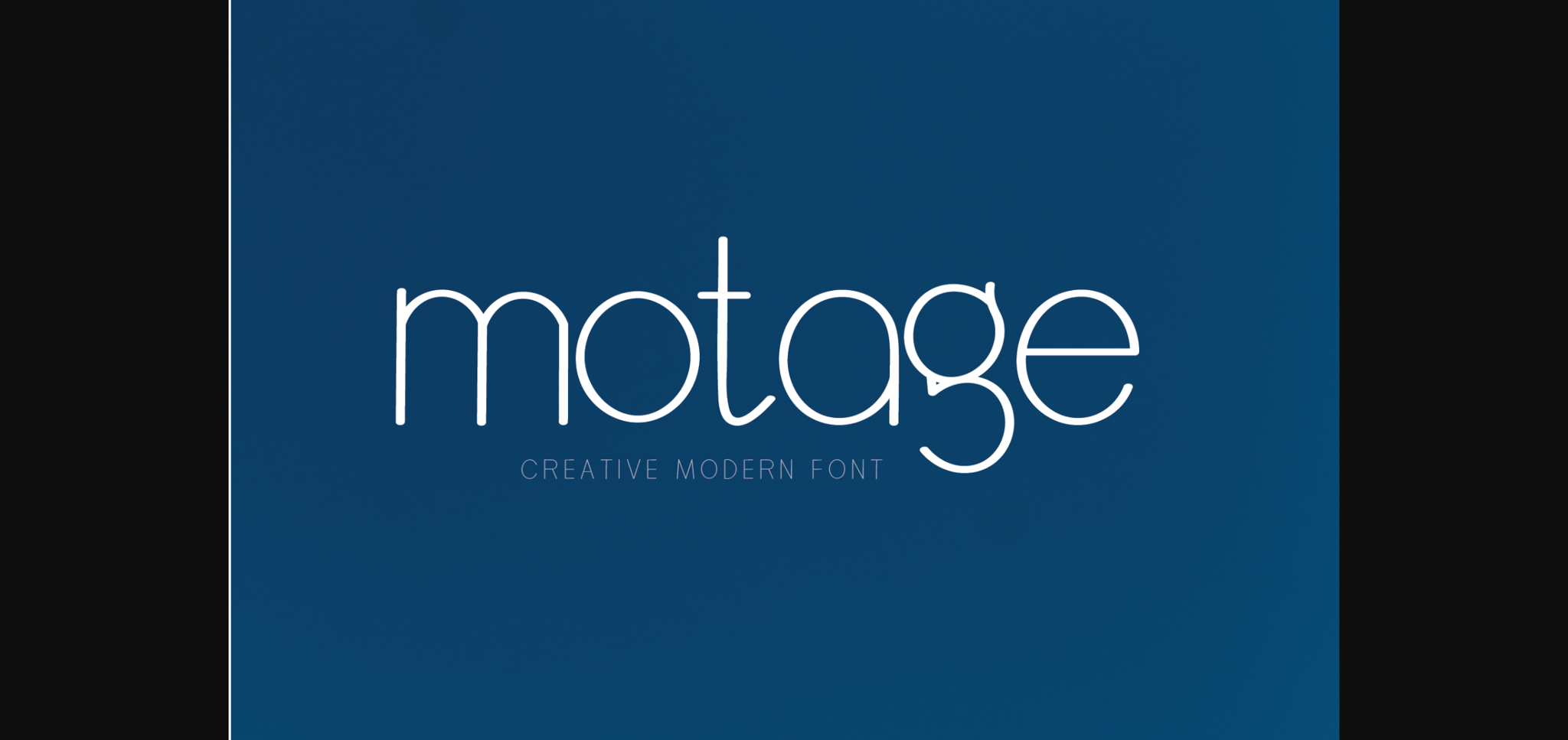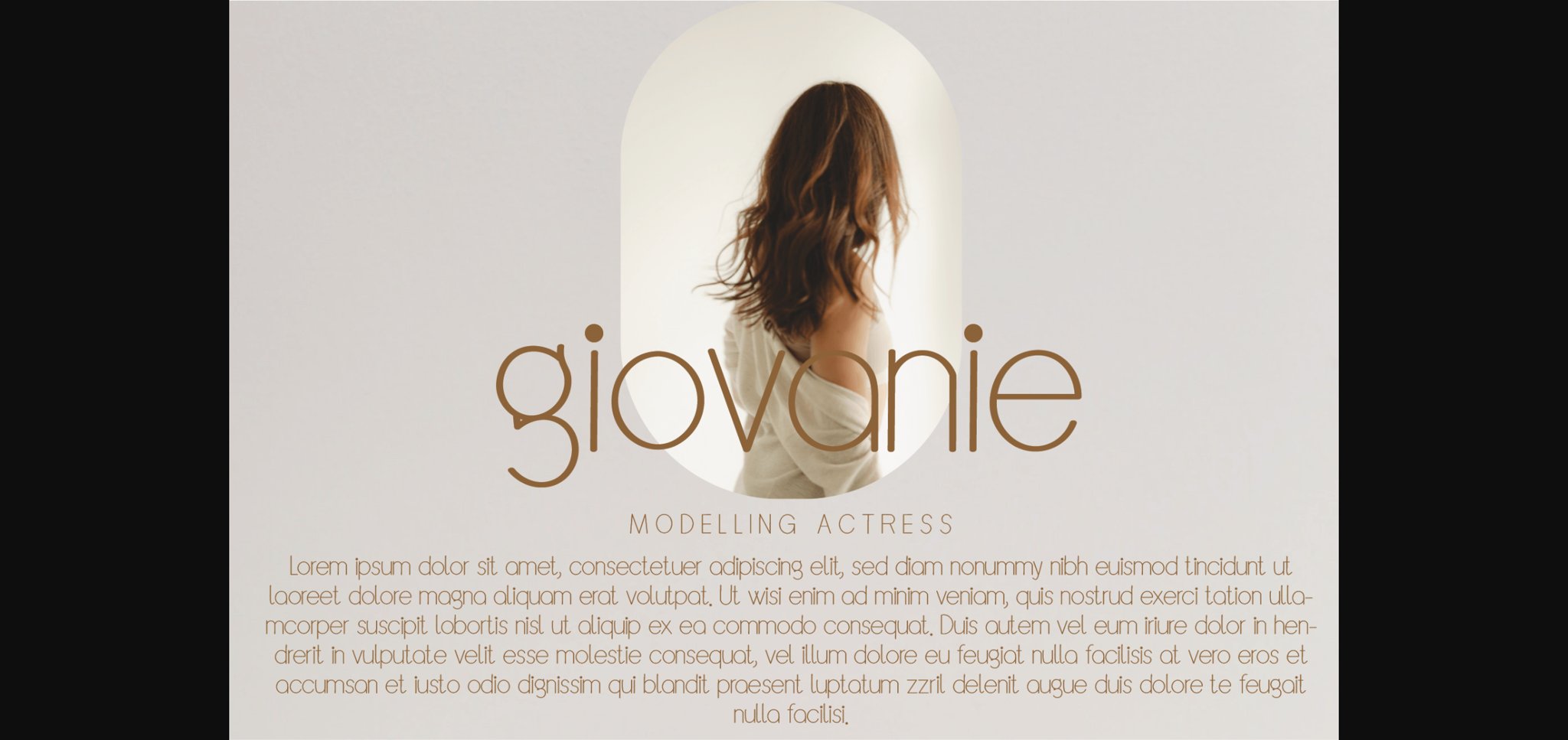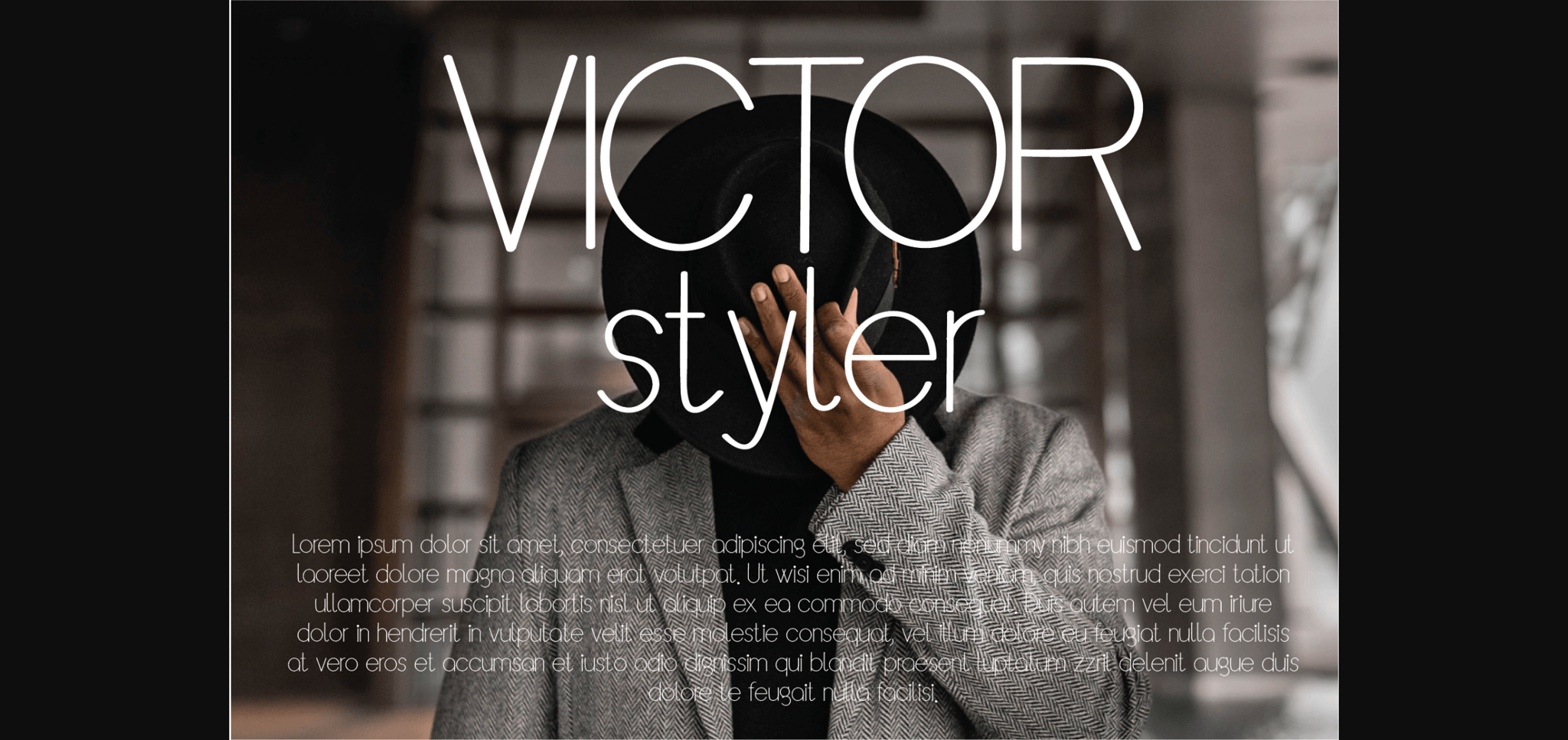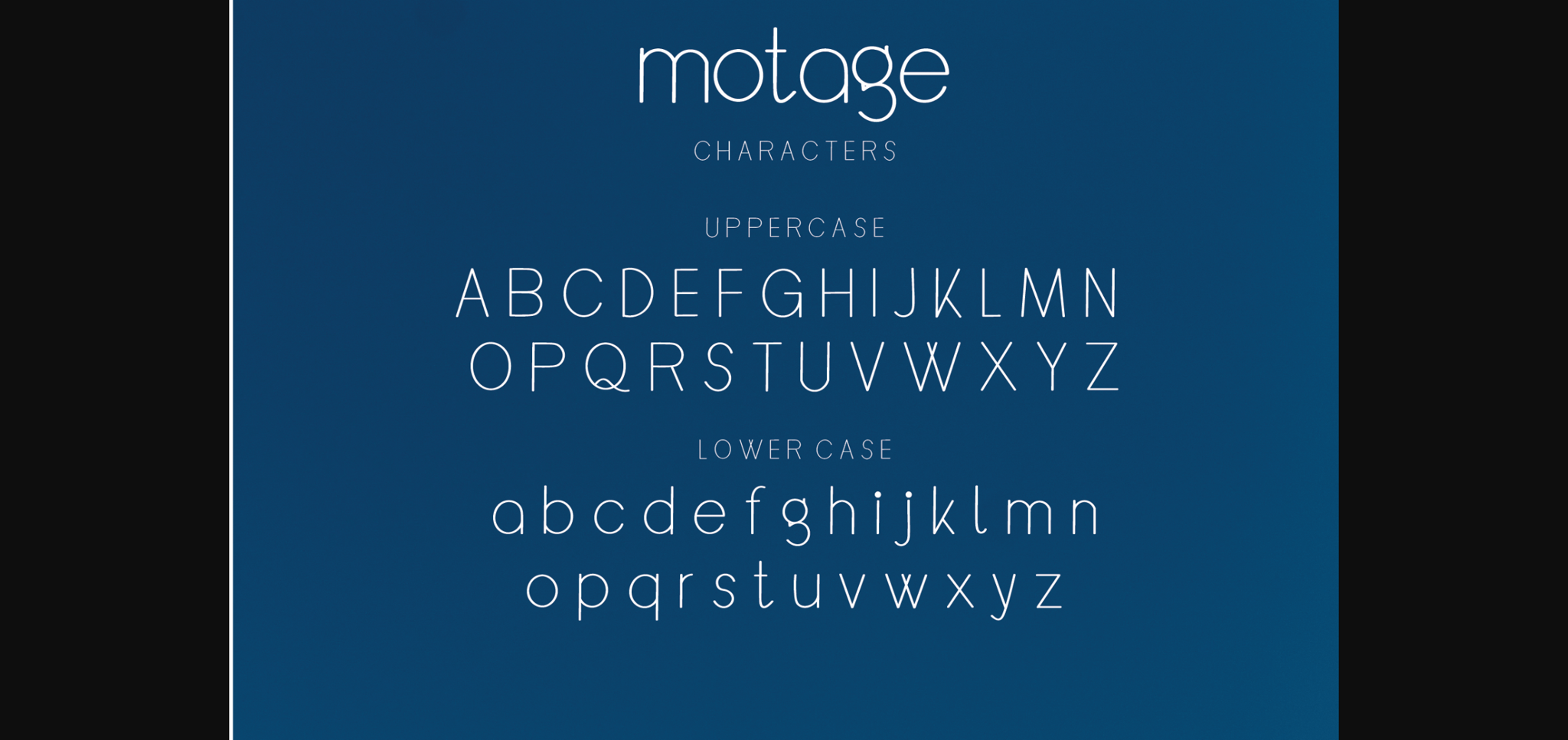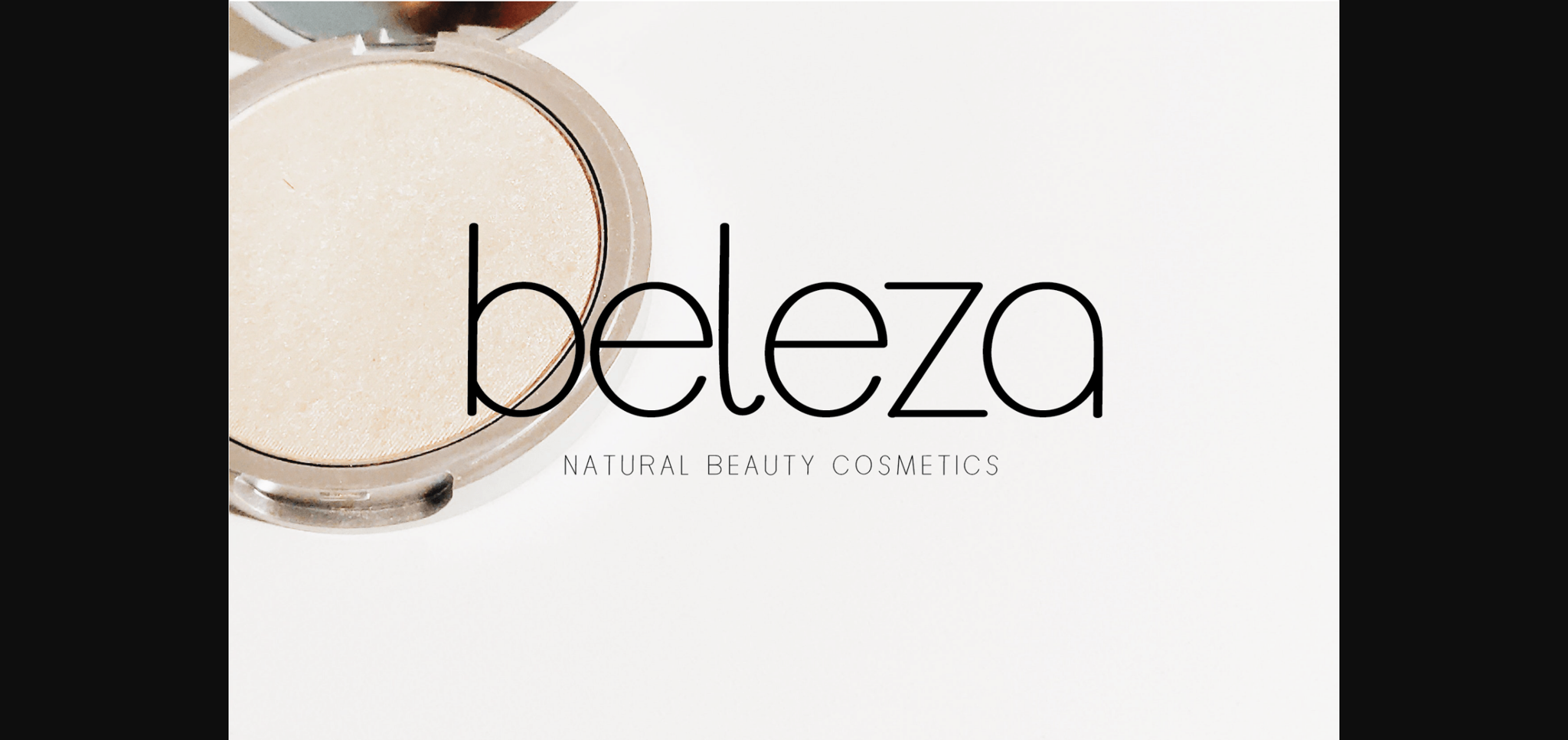
Motage Font
About Motage Font
Motage is a simple sans-serif font with a modern feel. Looks stunning on greeting cards, business cards, logos, product packaging, advertisements, quotes, and any other design that needs a cheery look!